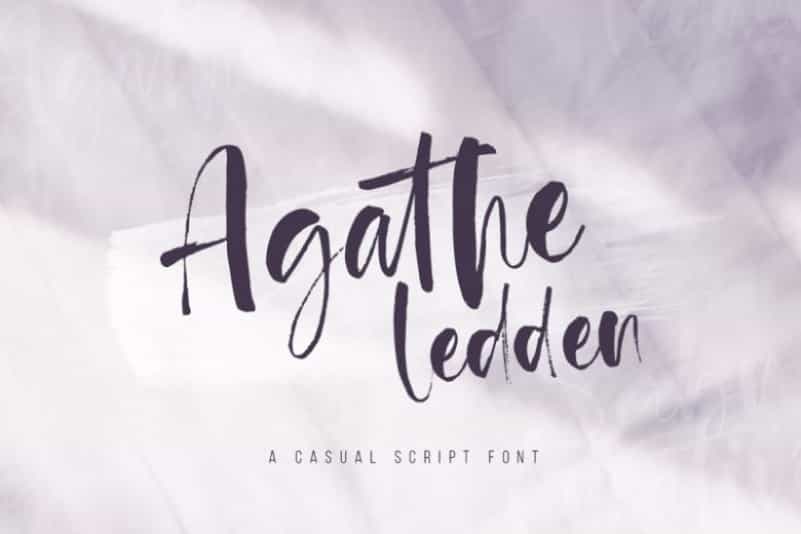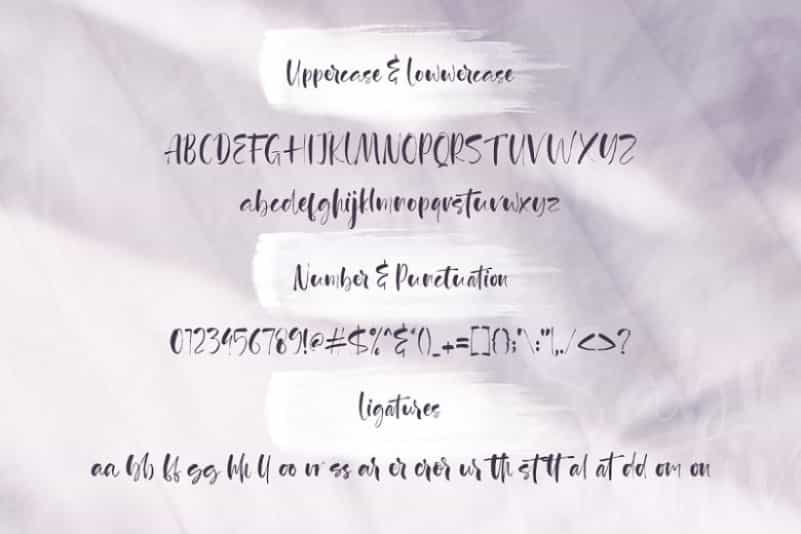
Agathe Ledden is a natural style handwritten brush font that feels like it was hand written. So many ligatures make natural fonts that are very suitable for your various projects. Agathe Ledden font can be applied to different purposes of your project in order to meet your requirements. Multilingual support makes it suitable to be combined with different design styles from different countries as well.